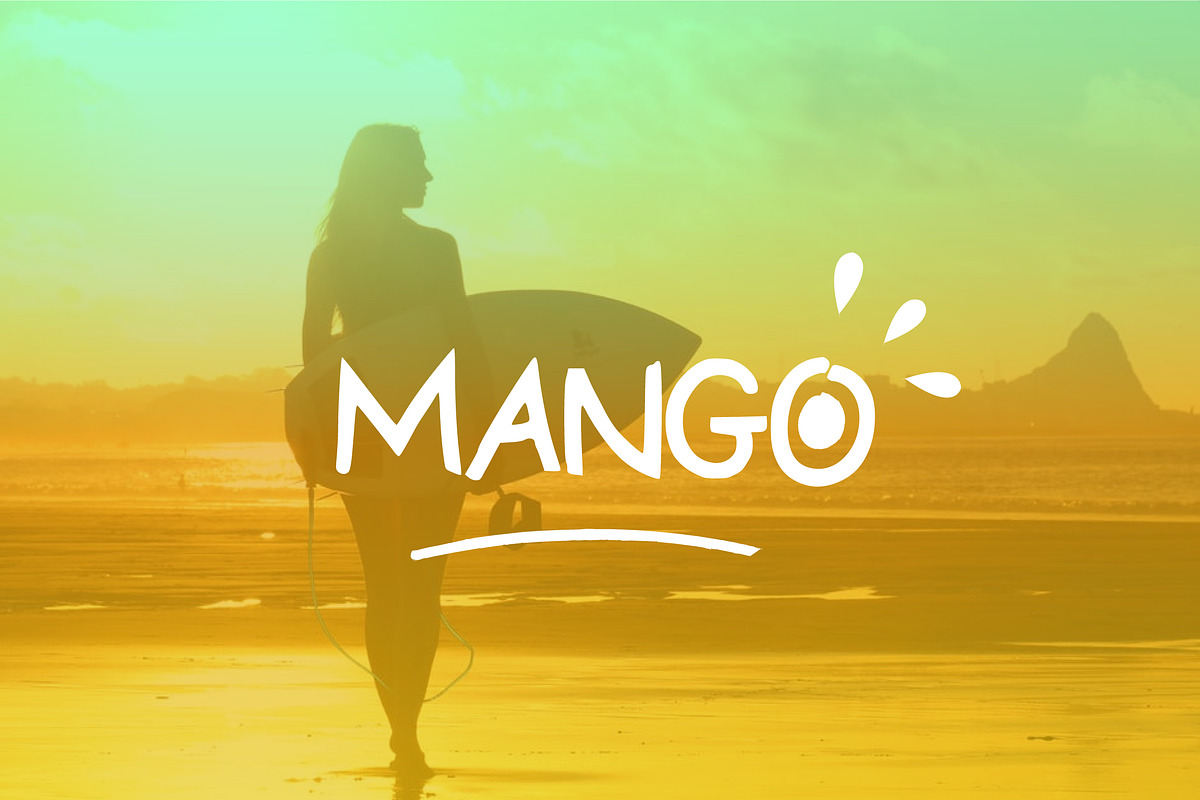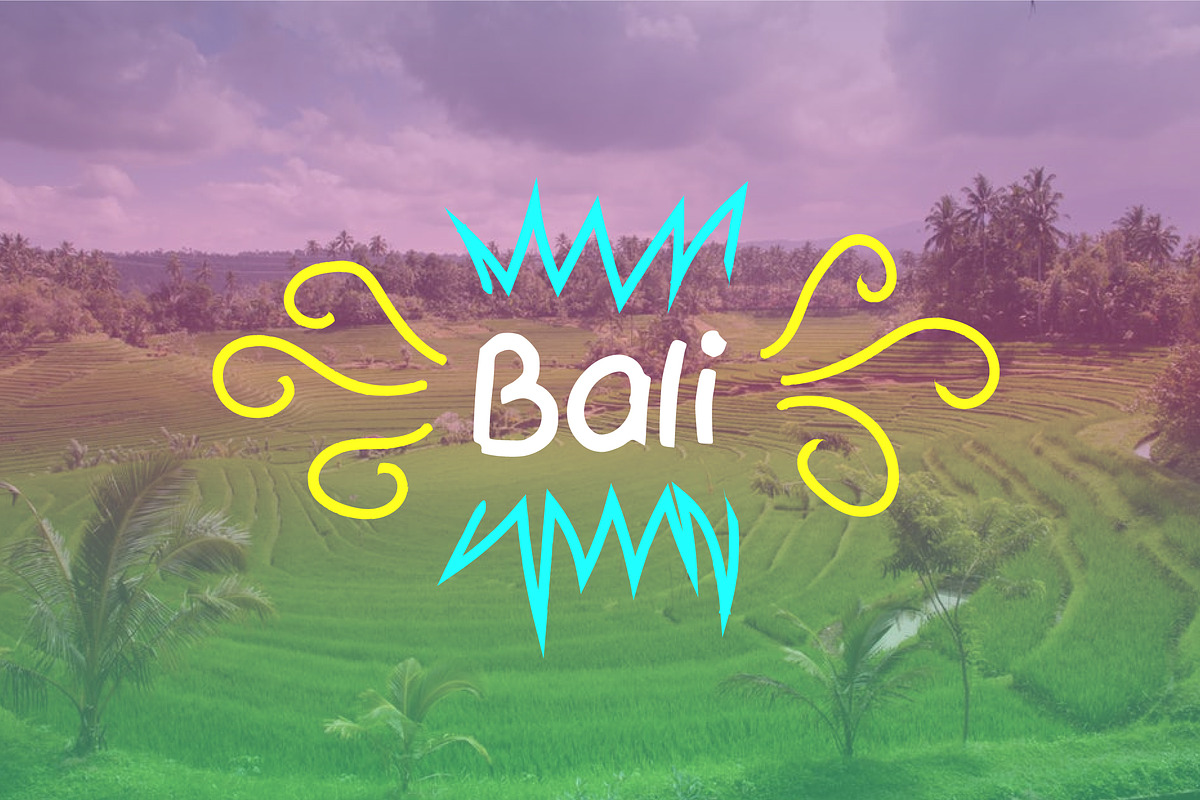
Mango Script Font
Mango Script Font by RedRiver Studio is a font selected for branding, posters, packaging, typography.
Why Mango Script Font is worth a look
Mango Script Font by RedRiver Studio fits naturally into Branding, posters, packaging, typography.